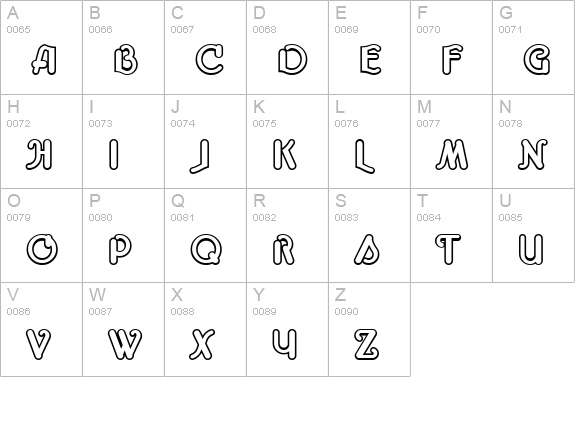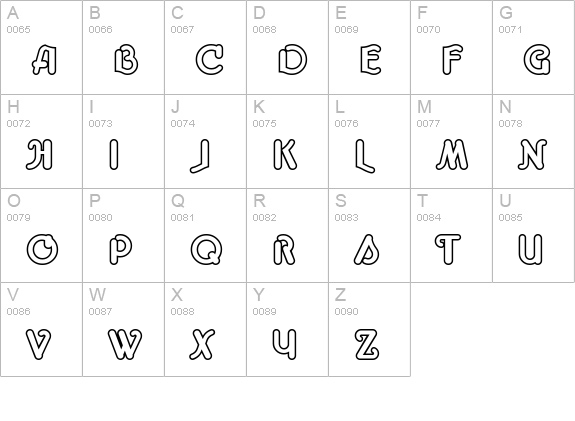
Cupola Open Font Details
Cupola Open font is a modern and elegant typeface designed to bring a touch of sophistication to your projects. With its clean lines and stylish appearance, Cupola Open is perfect for a wide range of design applications, from branding to editorial design. This versatile font exudes a sense of professionalism and class, making it a popular choice among designers and creatives. The best part about Cupola Open font is that it is completely free! Yes, you read that right - this high-quality font is freely available to download at FontsMarket.com. Whether you're working on a personal project or a professional assignment, Cupola Open font is sure to elevate your work and leave a lasting impression. Don't miss out on this fantastic opportunity to enhance your designs with a top-notch font - download Cupola Open today and take your creativity to the next level!